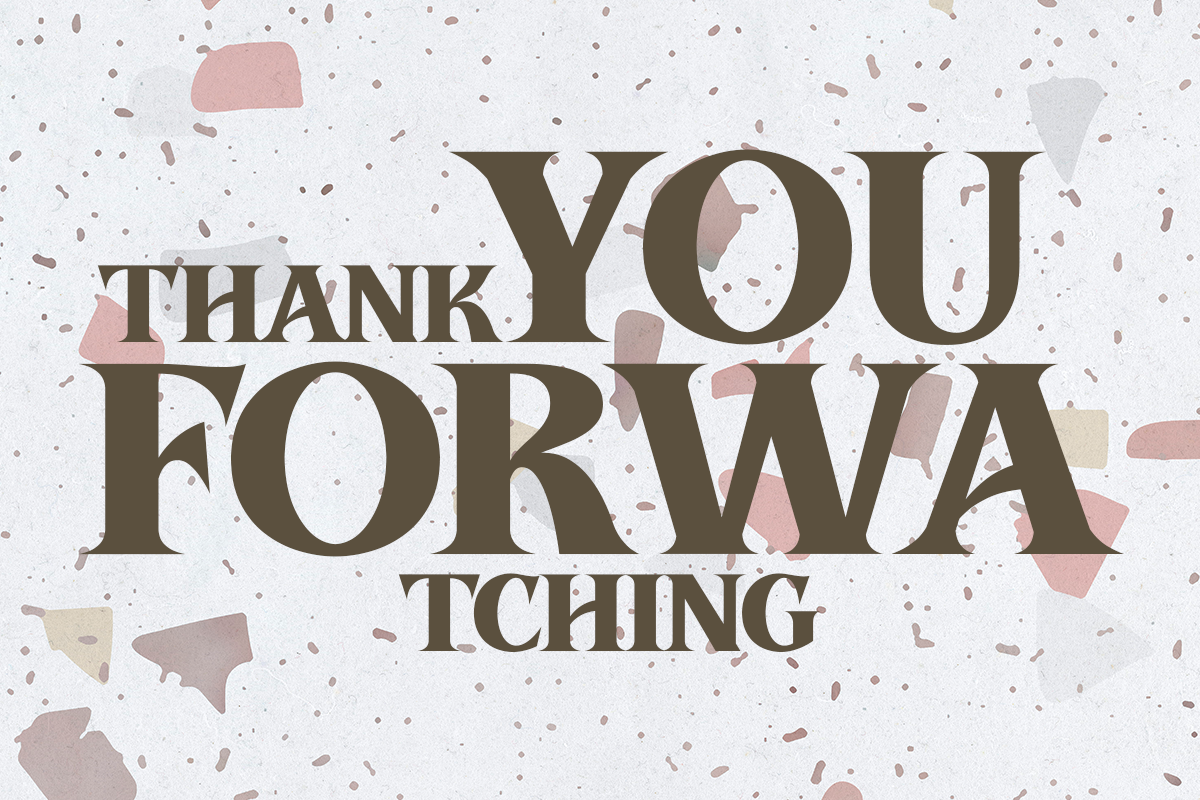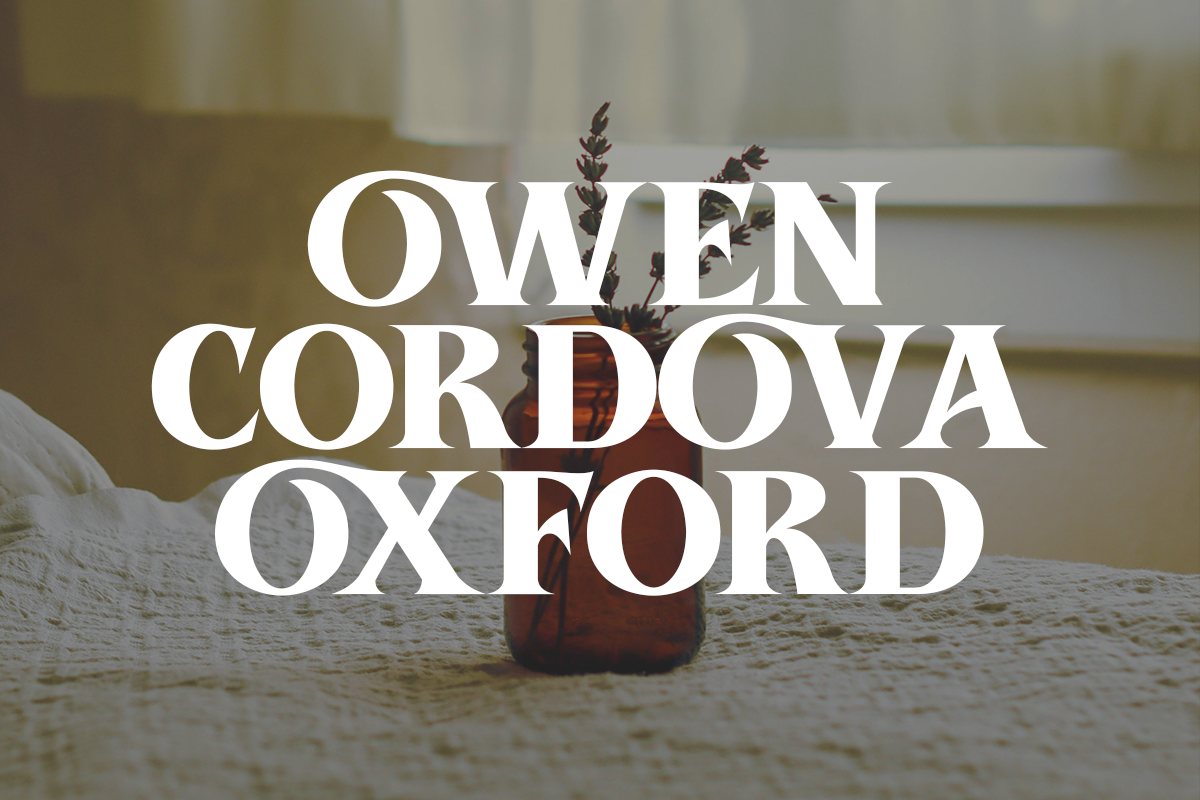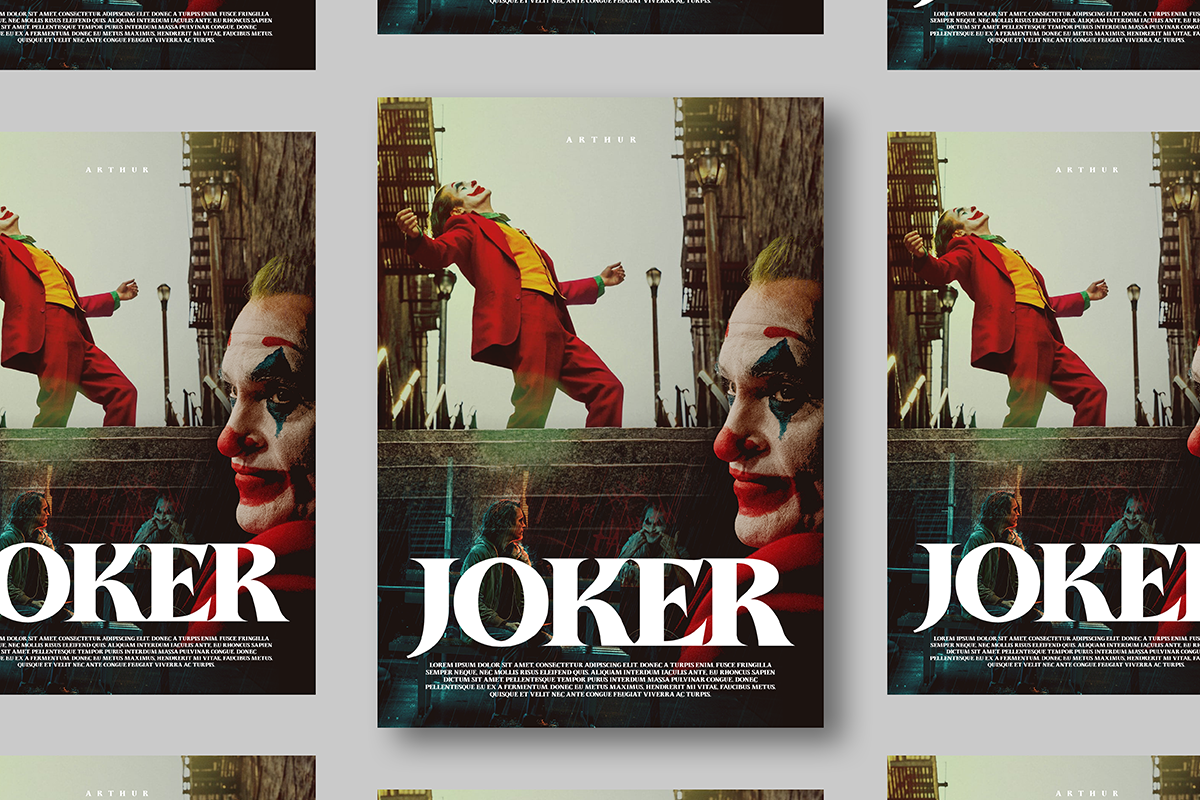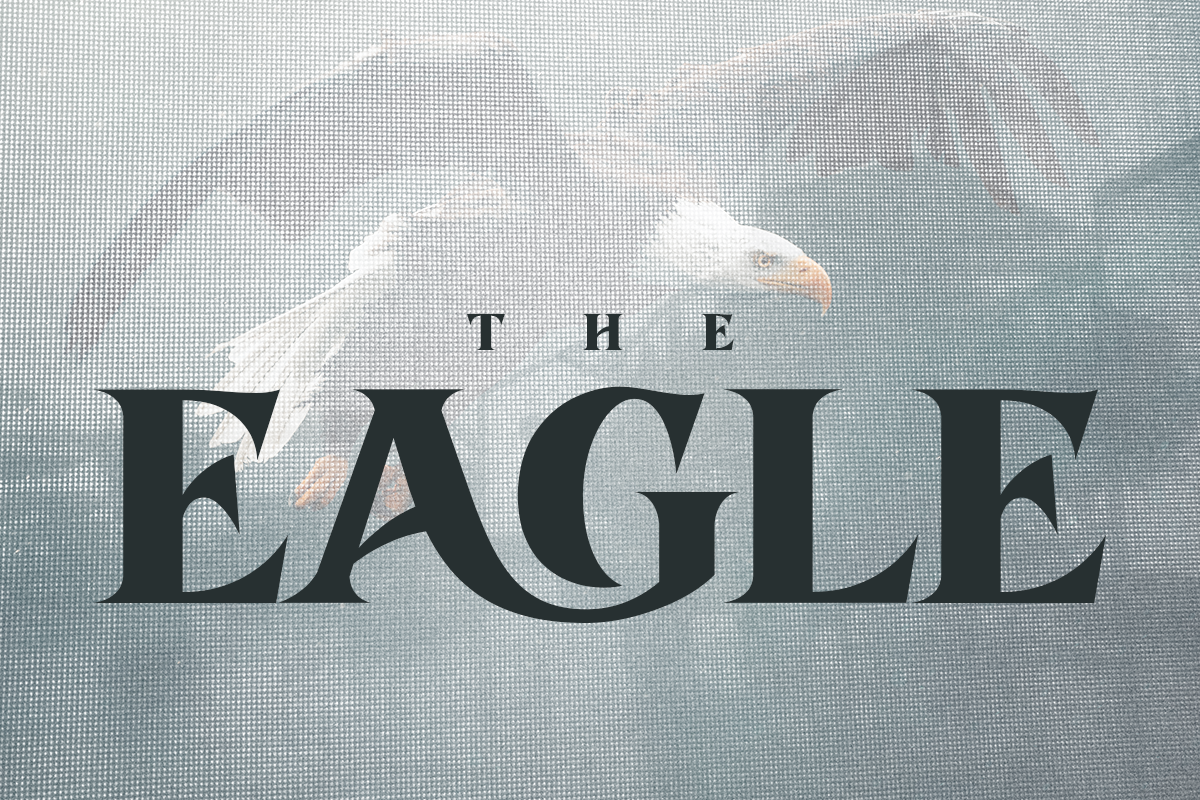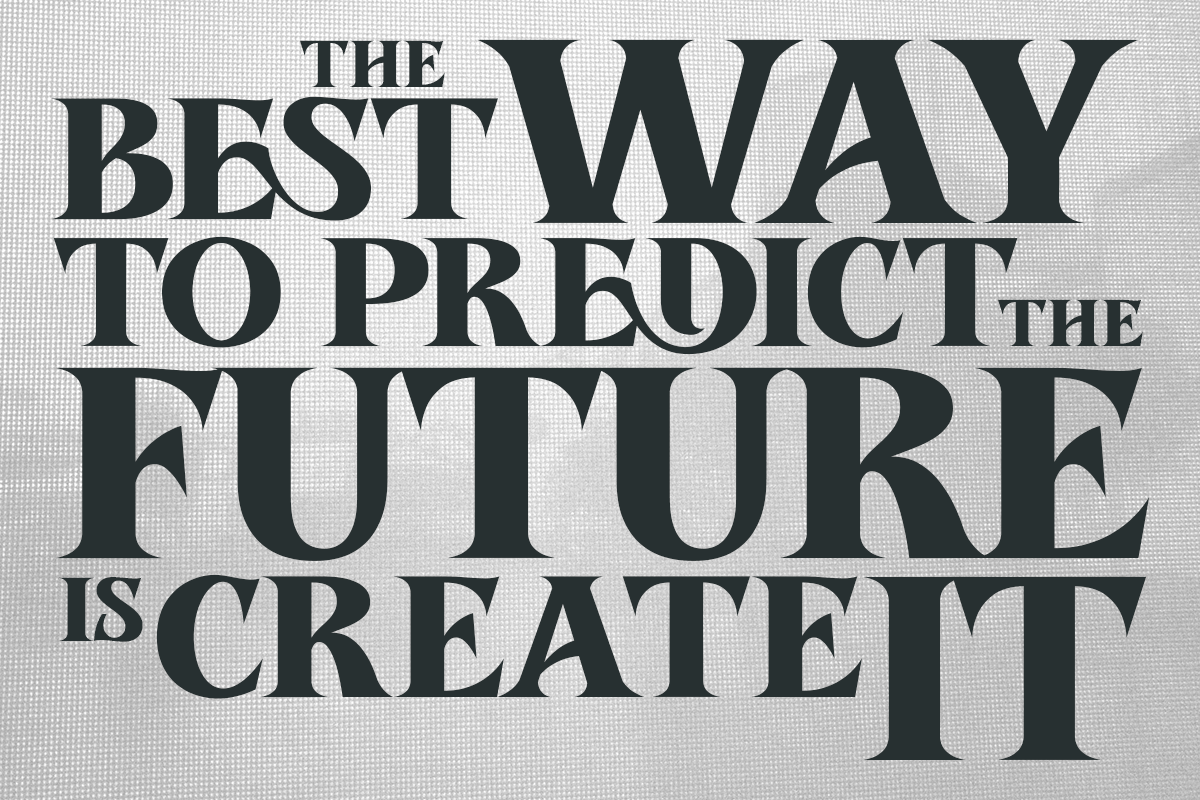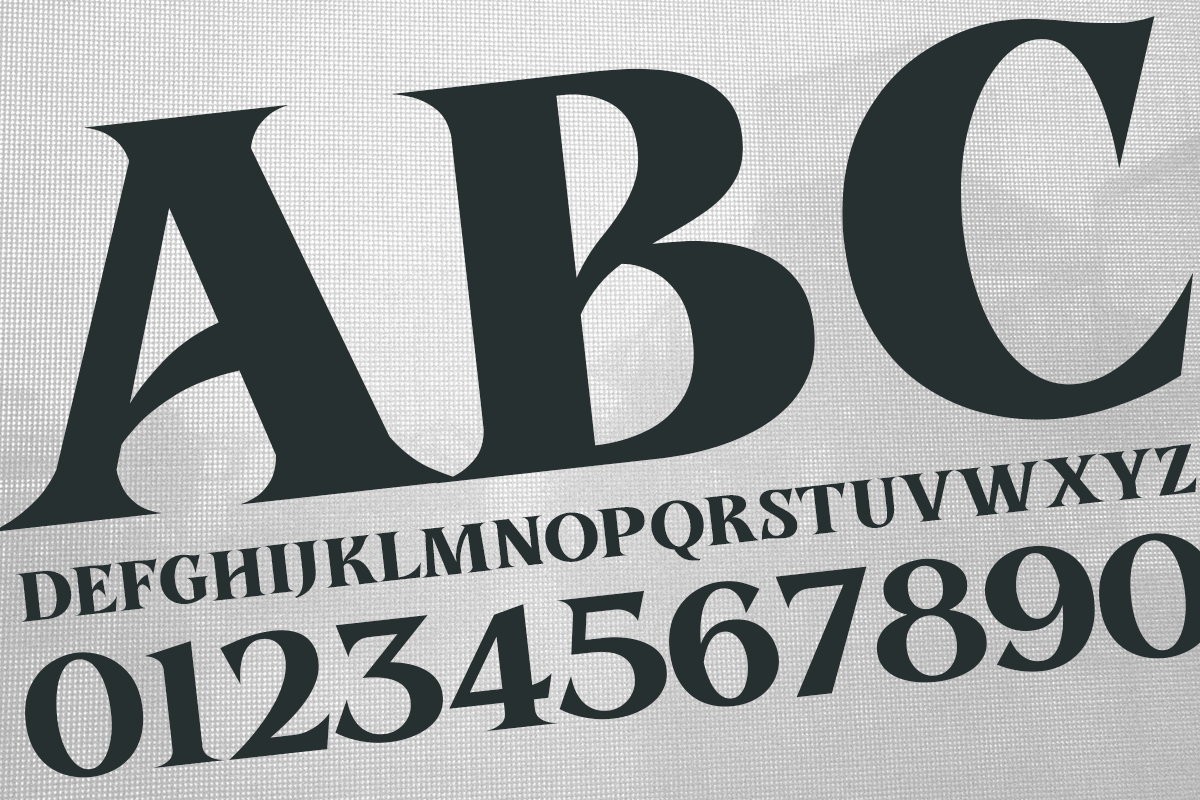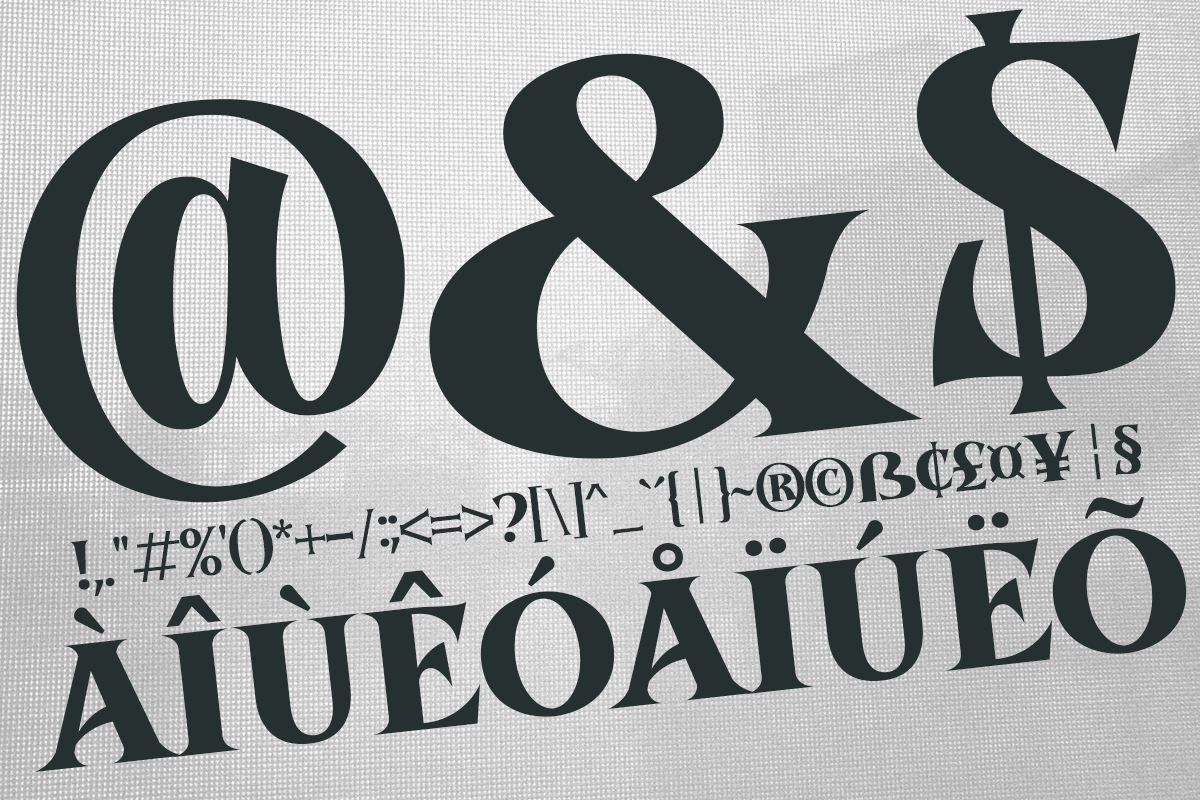
Aosta Modern Serif Font For Film Many types of serif fonts are available as options for all of us. Aosta Modern Serif Font For Film is one of the fonts that come with a unique, modern, and classic impression. This impression makes this font different from other Serif fonts. Aosta Modern Serif Font For Film has an upright shape and curves in several letters. In addition, Aosta Modern Serif Font For Film looks like a letter arises or resembles two dimensions. The characters described above make Aosta Modern Serif Font For Film one of the best fonts that have high compatibility when used as the title and in a film. The use of this font can make a classic and mysterious impression. Aosta Modern Serif Font For Film is a font that is suitable for use as a magazine cover and story that has a mysterious theme. An explanation of the use of Aosta Modern Serif Font For Film shows that this typeface can be used as a digital font and printed on the appropriate font size. The reason is supported by font readability. With the most thorny fonts, it is expected to increase your choice for Serif font lovers in choosing fonts that are suitable for the object you are going to mix. The Serif Font Collection is compatible for use as Figma Font, Font Kanva, Freepic Font, and Adobe Font. They also work as Windows font and Apple font. For your social media needs, you can use and install fonts in our Serif font collection to be used as Instagram fonts, Facebook fonts, and Twitter fonts.